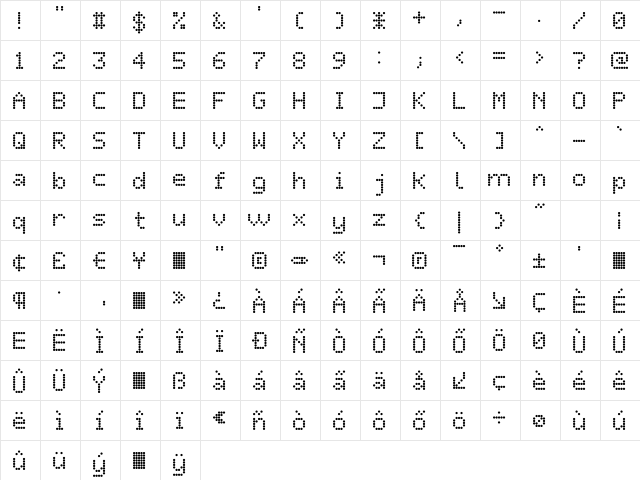
DS SysDot Regular
Design Context for DS SysDot Typeface
DS SysDot is rooted in pixel-grid construction, making it a natural fit for game UI, retro computing aesthetics, and digital nostalgia projects.
Well-suited to indie game interfaces, retro computing aesthetics, and pixel art-adjacent design work.
Pro Tip: Use DS SysDot at sizes that align with its pixel grid for the sharpest rendering — scaling to non-integer multiples can introduce unwanted blur.